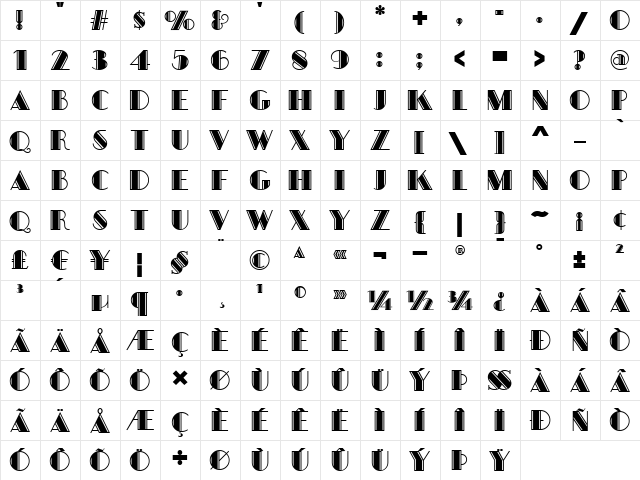
BoogalooBoulevardNF Regular Font Preview
BoogalooBoulevardNF Regular
Design Context for BoogalooBoulevardNF Typeface
BoogalooBoulevardNF is a composed and adaptable typeface that performs quietly and consistently across a wide range of design contexts.